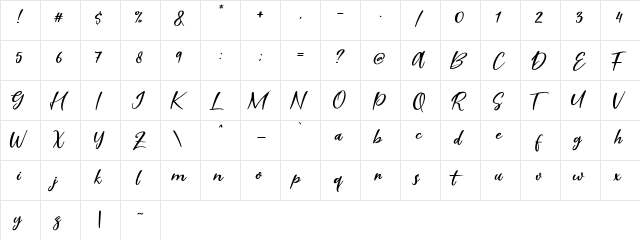
Scarlet Pen Regular
Design Context for Scarlet Pen Typeface
Scarlet Pen is a composed and adaptable typeface that performs quietly and consistently across a wide range of design contexts.